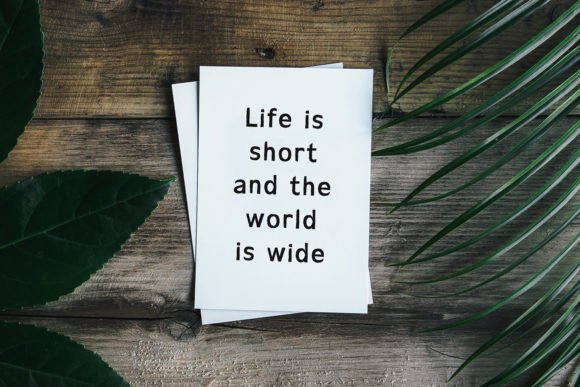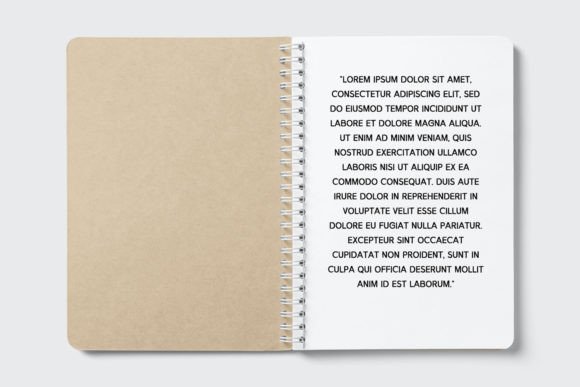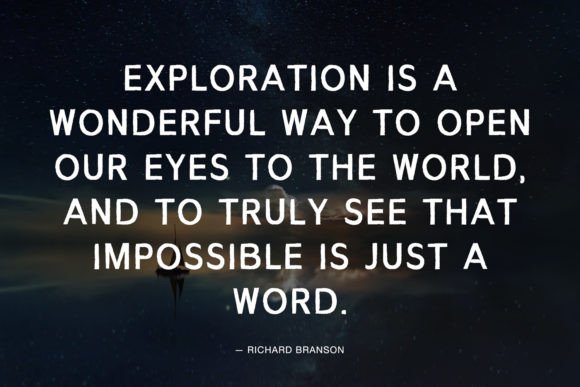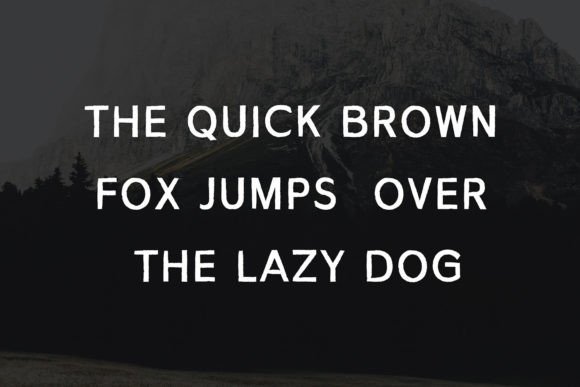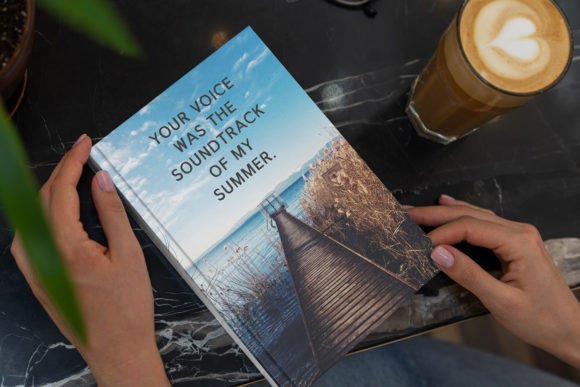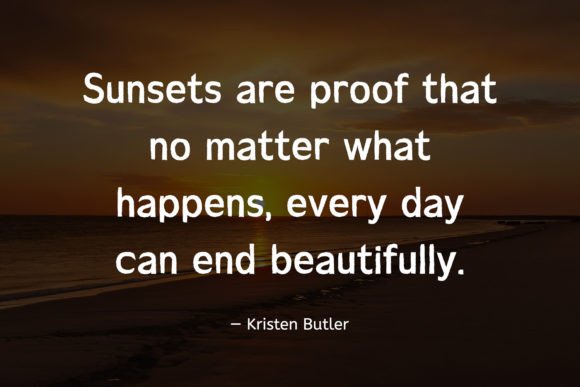
Introduction to Meer Font
Meer is a modern, youthful and unique handwritten brush texture font that will add class and personality to your upcoming projects.
Meer will be perfect for packaging, presentations, logo, headlines, lettering, posters, branding, quotes, titles, magazine headings, web layouts, advertising, invitations, books, and nearly any creative design .
Key Features of Meer Font
Why Choose Meer Font?